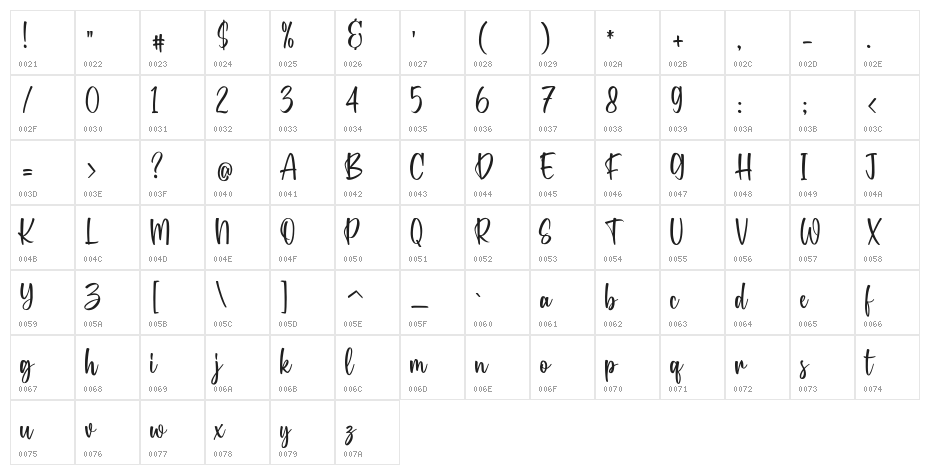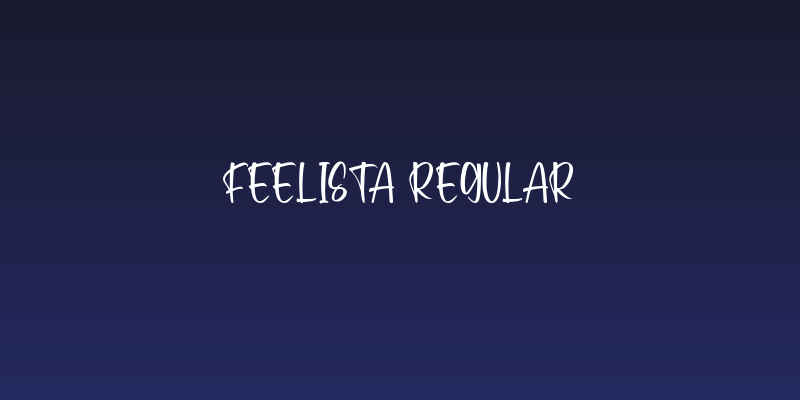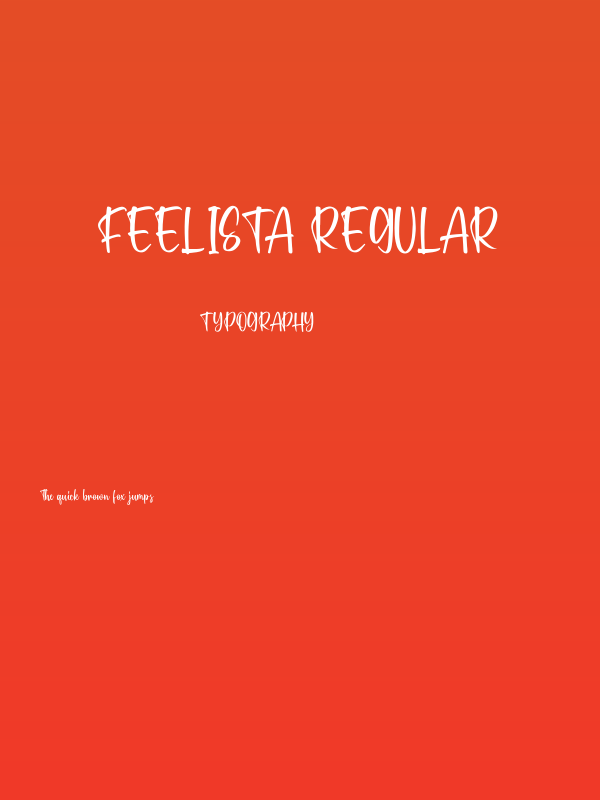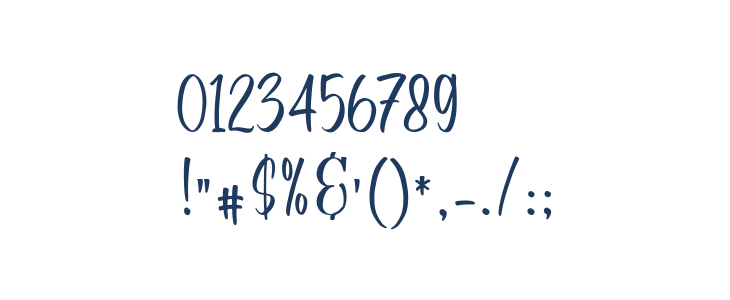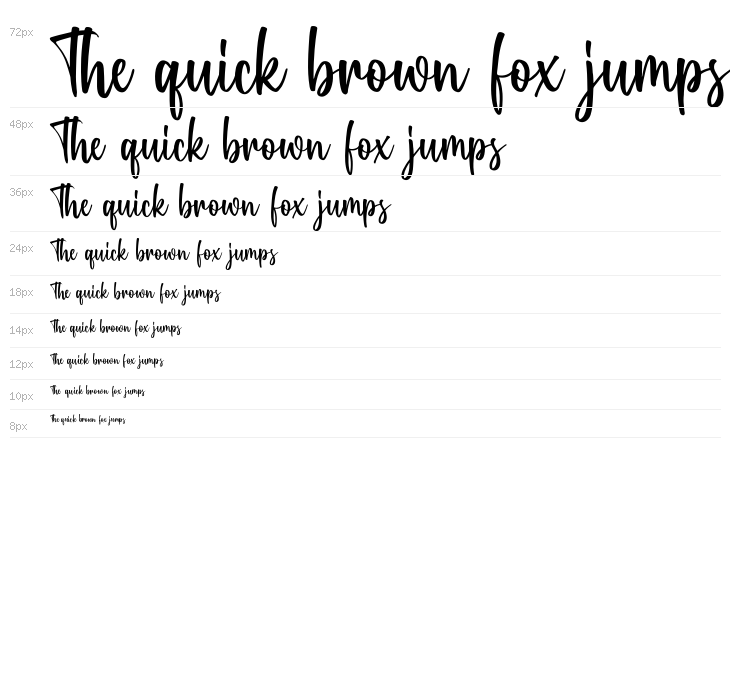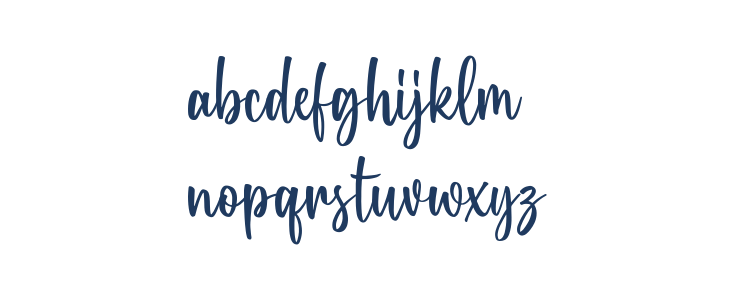
Feelista Regular Font
Feelista Regular Description
This font features a lively and expressive handwritten style, characterized by its fluid and dynamic strokes. The uppercase letters are bold and slightly condensed, giving a sense of energy and movement. The lowercase letters maintain a consistent flow, with some characters featuring playful loops and curves. The numerals are clear and legible, matching the overall style of the alphabet. Special characters are creatively designed, adding to the font's unique personality. This font is perfect for projects that require a personal and artistic touch.